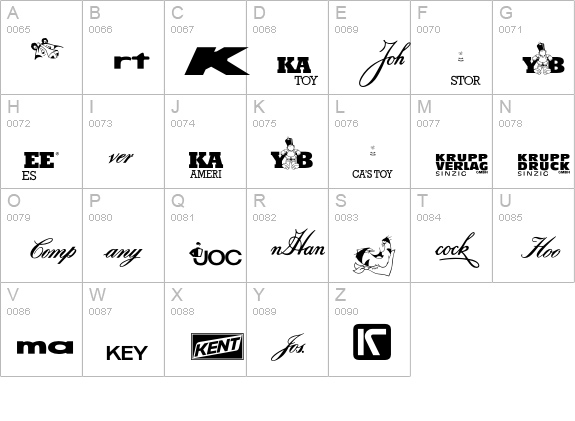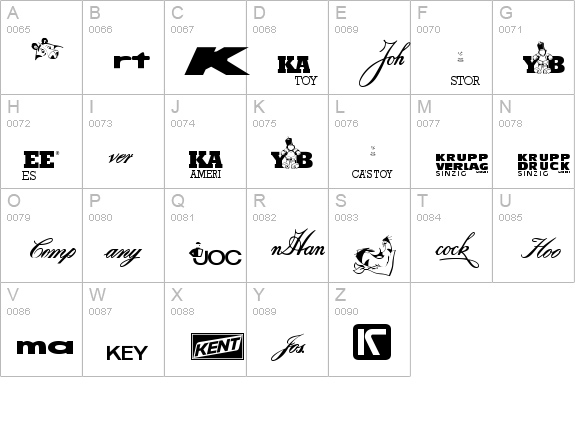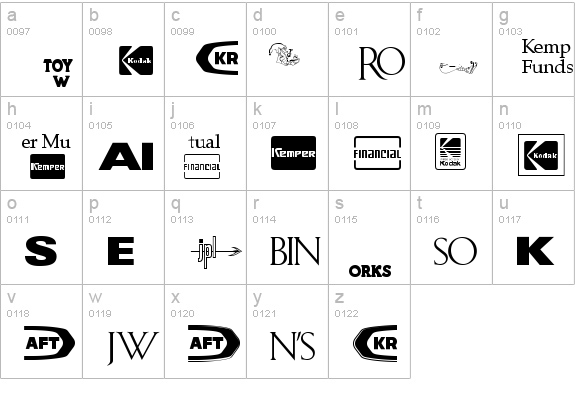
LogosCompanyP10 font is a sleek and modern typeface that exudes professionalism and sophistication. Its clean lines and sharp edges make it perfect for a wide range of design projects, from branding to editorial layouts. The font's versatility allows it to be used in a variety of styles, making it a go-to choice for designers looking for a reliable and stylish option. One of the best things about LogosCompanyP10 font is that it is completely free to download at FontsMarket.com. This means that you can add this elegant font to your collection without breaking the bank. Whether you are a seasoned designer or just starting out, having access to high-quality fonts like LogosCompanyP10 can elevate your work to the next level. Don't miss out on this fantastic opportunity to enhance your designs with LogosCompanyP10 font. Download it for free today and start creating stunning visuals that will leave a lasting impression.